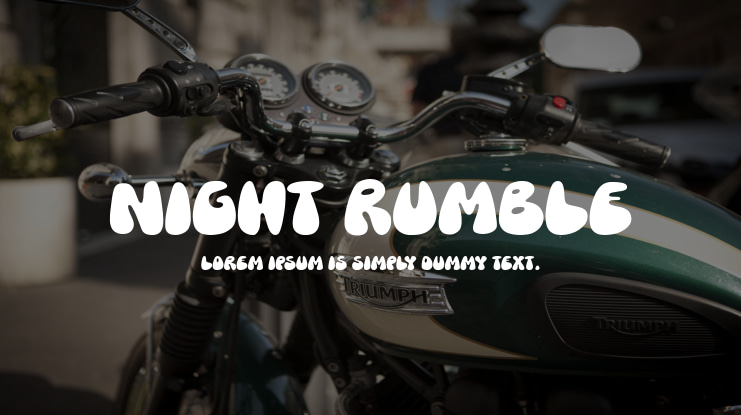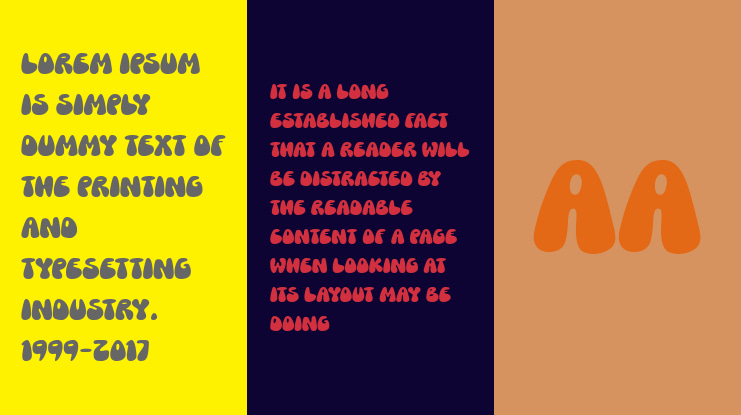
Night Rumble Font
Introducing the Night Rumble font, created by Timur Type.
This fun and unique font is inspired by balloons, with a creative twist. Each letter is meticulously designed to resemble the shape of a balloon, featuring rounded curves and a puffy appearance. What sets this font apart is its cartoon-like texture, providing a nostalgic 90's feel. The smooth edges and subtly conical edges of the letters add depth and character to the overall design.
Night Rumble is the perfect choice for projects that aim to convey a sense of fun, uniqueness, and handmade charm. It's ideal for children's book covers, greeting cards, party invitations, or any creative design that desires a playful and creative aesthetic. With its distinctive and lively shapes, this font adds a captivating and interesting element to any visual composition.